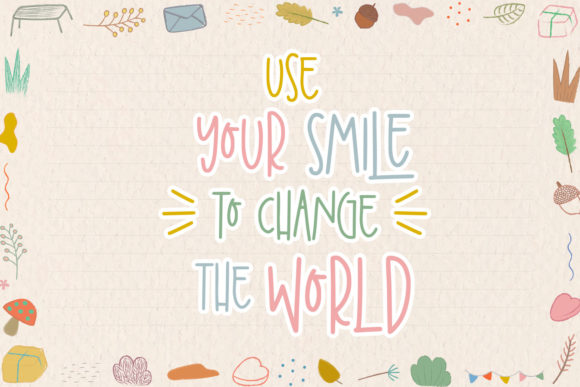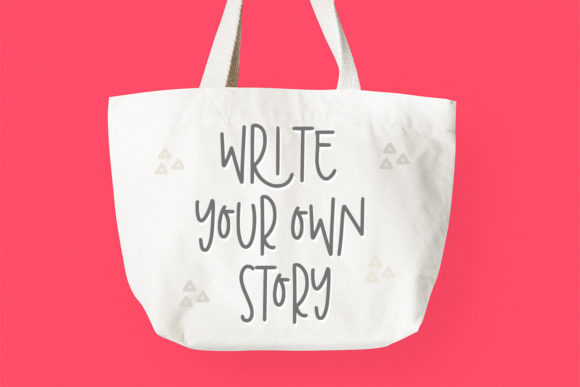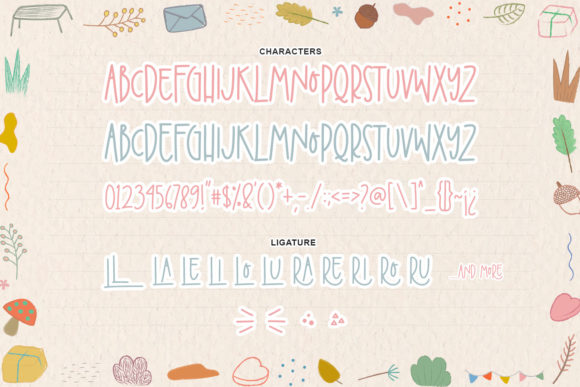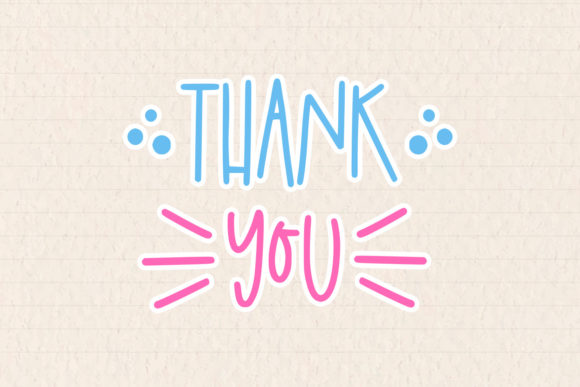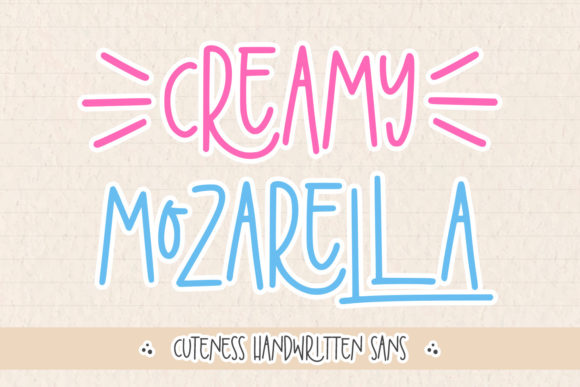
Creamy Mozarella Font: The Ultimate Playful Display Font for Creative Projects
Are you a designer or crafter looking for a font that can add a touch of playfulness and whimsy to your creative projects? Look no further than the Creamy Mozarella font! This delightful display font is perfect for a wide range of applications, from lettering and quotes to logos, t-shirt designs, and more.
What is Creamy Mozarella Font?
Creamy Mozarella is a carefully crafted display font that exudes a sense of fun and playfulness. Its unique and quirky design makes it an excellent choice for creative projects that require a personal touch. The font’s smooth and creamy texture gives it a distinctive feel that’s sure to capture the attention of your audience.
What Can I Use Creamy Mozarella Font For?
The versatility of Creamy Mozarella font is one of its standout features. This font can be used for a wide range of creative projects, including:
- Lettering and quotes: Add a touch of personality to your hand-lettered quotes and phrases with Creamy Mozarella.
- Logos: Create a memorable and eye-catching logo for your brand or business with this playful font.
- T-shirt designs: Design unique and stylish t-shirts that are sure to turn heads.
- Mugs and tote bags: Add a personal touch to your ceramic mugs and tote bags with Creamy Mozarella.
- Cards and invitations: Create beautiful and eye-catching cards and invitations for special occasions.
- Banners and social media posts: Use Creamy Mozarella to create engaging and shareable content for social media.
- Craft projects: This font is perfect for a wide range of craft projects, from scrapbooking to DIY home decor.
Why Choose Creamy Mozarella Font?
So why choose Creamy Mozarella font for your creative projects? Here are just a few reasons:
- Unique and playful design: Creamy Mozarella font has a distinctive and eye-catching design that’s sure to set your projects apart.
- High-quality and smooth texture: The font’s smooth and creamy texture gives it a professional and polished feel.
- Versatile: Creamy Mozarella font can be used for a wide range of creative projects, from digital designs to handmade crafts.
- Easily readable: Despite its playful design, Creamy Mozarella font is easy to read and understand, making it perfect for quotes and phrases.
Tips for Using Creamy Mozarella Font
Here are a few tips for getting the most out of Creamy Mozarella font:
- Experiment with colors: Creamy Mozarella font looks great in a wide range of colors, from bright and bold to soft and pastel.
- Play with textures: Add an extra layer of interest to your designs by combining Creamy Mozarella font with different textures and patterns.
- Use it sparingly: While Creamy Mozarella font is perfect for headlines and titles, it can be overwhelming if used too much. Use it sparingly to create a sense of balance and harmony.